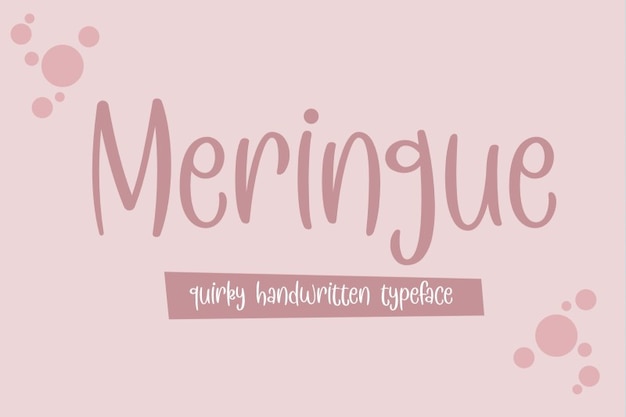
Meringue Font
"Meringue" is a delightful handwritten font that mimics the artistry of faux calligraphy, perfect for bullet journal enthusiasts. Its elegant strokes and playful flourishes bring a touch of whimsy to any project. Ideal for journaling, invitations, and creative endeavors, "Meringue" adds a personalized charm with its fauxligraphy style, making every word feel like a work of art.